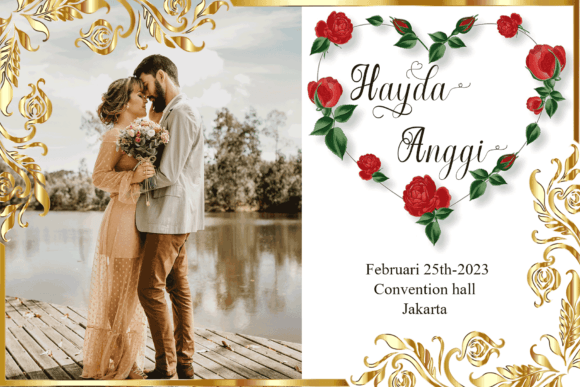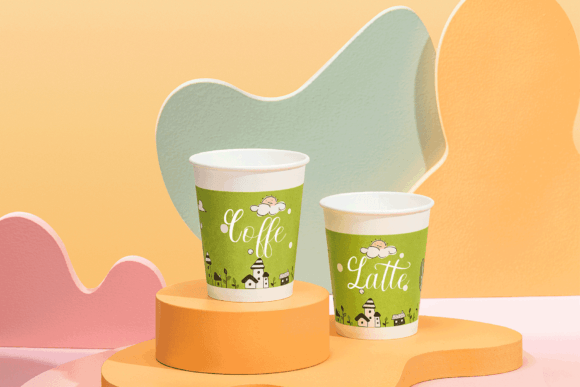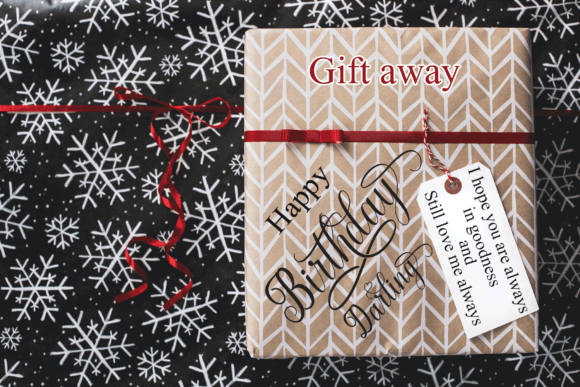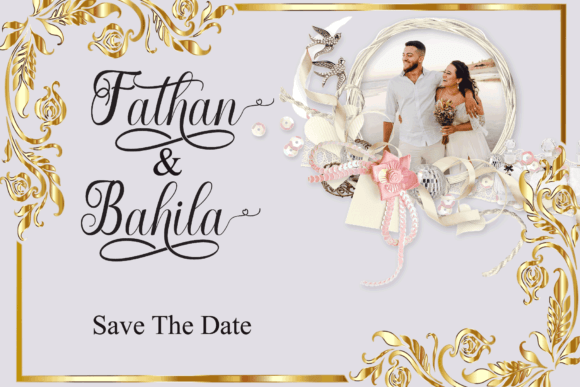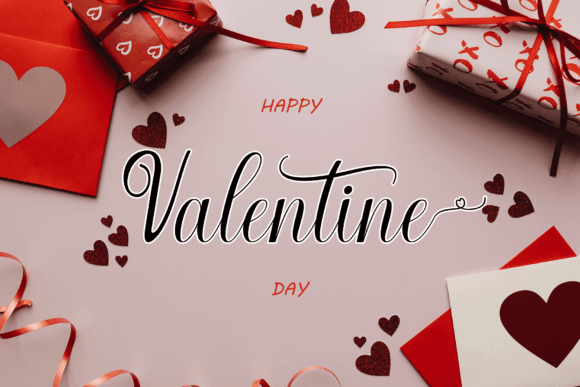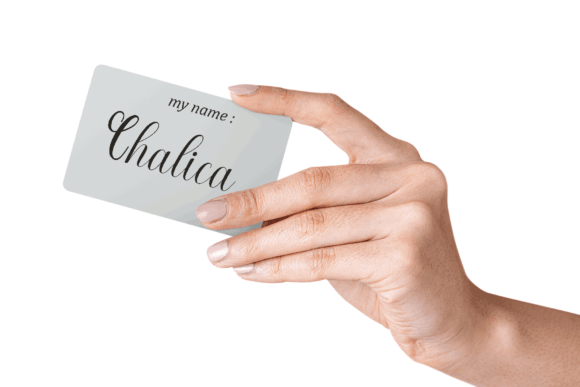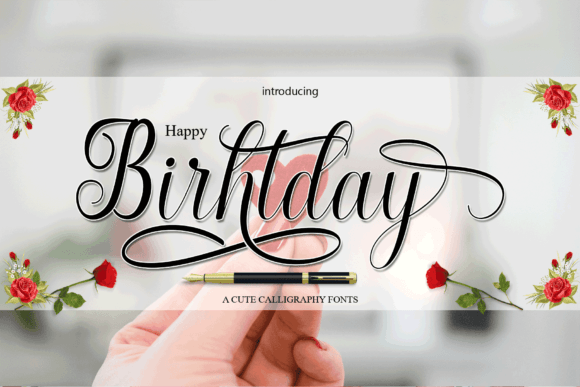
Introducing Birthday Font: The Perfect Addition to Your Design Arsenal
Are you on the hunt for a font that exudes elegance and sophistication? Look no further than Birthday Font, a stylish and delicate script font that’s sure to elevate your designs to new heights. With its clean, thin, and smooth vibe, this font is perfect for adding a touch of refinement to any project.
What Sets Birthday Font Apart
So, what makes Birthday Font so special? For starters, its unique blend of elegance and simplicity makes it incredibly versatile. Whether you’re working on a wedding invitation, a branding project, or a social media graphic, this font is sure to make a lasting impression. Plus, with its PUA encoding, you can access all the glyphs and ligatures with ease, giving you complete creative control over your design.
- Stylish and delicate script font: Add a touch of sophistication to your designs with this beautiful script font.
- Clean, thin, and smooth vibe: Perfect for creating elegant and refined designs that pop.
- PUA encoded: Access all glyphs and ligatures with ease, giving you complete creative control.
- Highly versatile: Suitable for a wide range of design projects, from wedding invitations to branding and social media graphics.
Why Designers and Crafters Love Birthday Font
Birthday Font has quickly become a favorite among designers and crafters, and it’s easy to see why. With its unique blend of style and simplicity, this font is perfect for adding a personal touch to any design. Plus, its PUA encoding makes it easy to use and customize, even for those with limited design experience.
Tips for Using Birthday Font in Your Designs
Ready to start using Birthday Font in your designs? Here are a few tips to get you started:
- Pair it with bold fonts: Create a striking contrast by pairing Birthday Font with bold, chunky fonts.
- Use it for headings and titles: Add a touch of elegance to your headings and titles with this beautiful script font.
- Experiment with colors and textures: Add depth and interest to your designs by experimenting with different colors and textures.